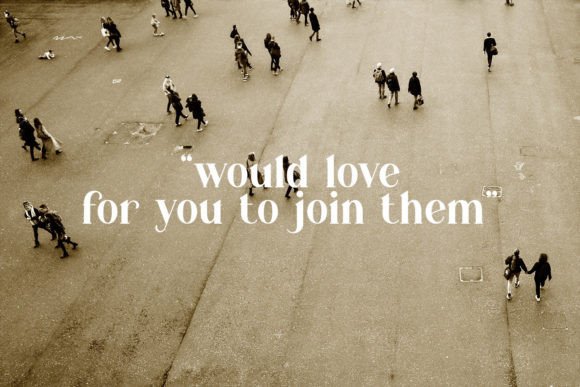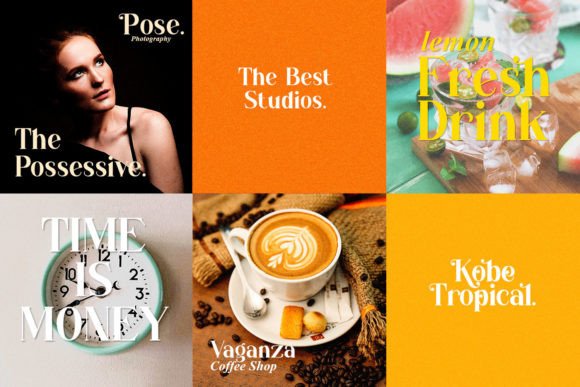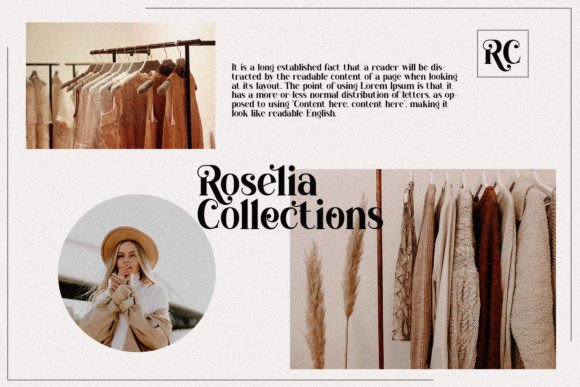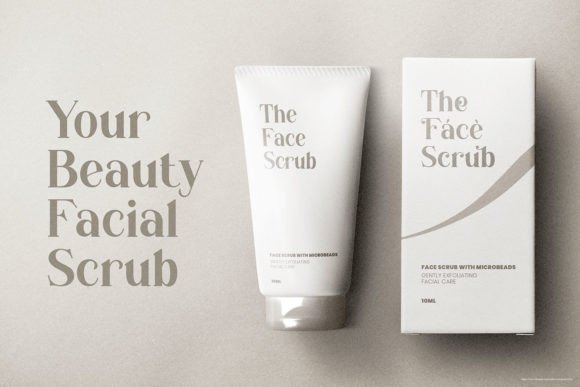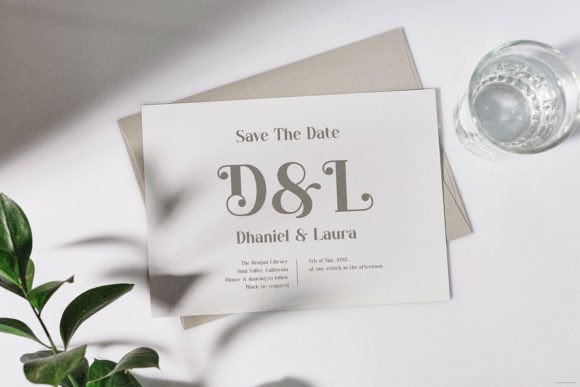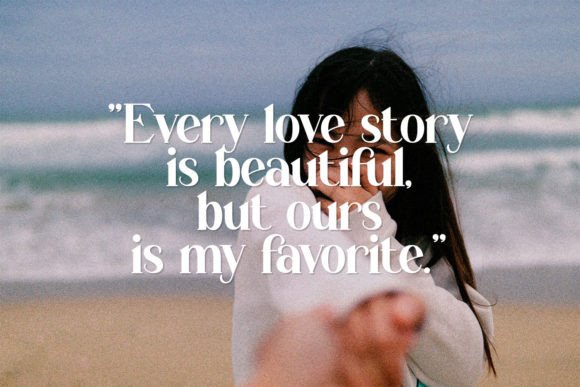
Borisna Font: Elevate Your Designs with Sophistication and Elegance
In the world of typography, fonts play a crucial role in conveying the tone and aesthetic of a design. For those seeking a sophisticated, charming serif font with a fashionable touch, Borisna Font is an exceptional choice. Specifically designed for luxury, elegant, and feminine projects, Borisna Font is perfectly suited for creating modern, chic designs that exude refinement and poise.
What Makes Borisna Font Stand Out?
Borisna Font boasts a unique blend of classic serifs and contemporary flair, making it an ideal choice for designers and crafters looking to add a touch of elegance to their work. Its sophisticated charm is evident in its sleek lines, refined curves, and exquisite details. Whether you’re working on a luxury brand identity, a high-end fashion magazine, or an elegant wedding invitation, Borisna Font is sure to impress.
Key Features of Borisna Font
- PUA Encoding: Borisna Font is PUA (Private Use Area) encoded, which means you can easily access all the glyphs and swashes with ease. This feature allows for greater flexibility and creativity in your designs.
- Sophisticated Serif Design: The font’s serif design is both classic and modern, making it perfect for a wide range of applications, from luxury branding to elegant stationery.
- Fashionable Touch: Borisna Font has a distinctly fashionable feel, making it ideal for fashion-related projects, such as fashion magazines, runway show invitations, and luxury brand advertisements.
- Elegant and Feminine: The font’s elegant and feminine charm makes it perfect for projects that require a touch of sophistication and refinement, such as wedding invitations, beauty brand packaging, and high-end product design.
Perfect for Modern, Chic Designs
Borisna Font is designed to help you create modern, chic designs that are both stylish and sophisticated. Its versatility makes it suitable for a wide range of applications, including:
- Luxury branding and advertising
- Fashion magazines and runway show invitations
- Beauty and cosmetics packaging
- High-end product design and packaging
Why Choose Borisna Font?
With so many fonts available, why choose Borisna Font? Here are just a few reasons:
- Unique and Exclusive: Borisna Font offers a unique and exclusive design that will set your work apart from others.
- High-Quality Design: The font is designed with high-quality craftsmanship, ensuring that it looks great in any design.
- Easy to Use: With PUA encoding, accessing glyphs and swashes is easy, making it simple to incorporate into your design workflow.
In conclusion, Borisna Font is an exceptional choice for designers and crafters seeking a sophisticated, charming serif font with a fashionable touch. Its unique blend of classic serifs and contemporary flair makes it perfect for luxury, elegant, and feminine projects. With its PUA encoding, elegant design, and versatility, Borisna Font is sure to elevate your designs and help you create modern, chic designs that exude refinement and poise.